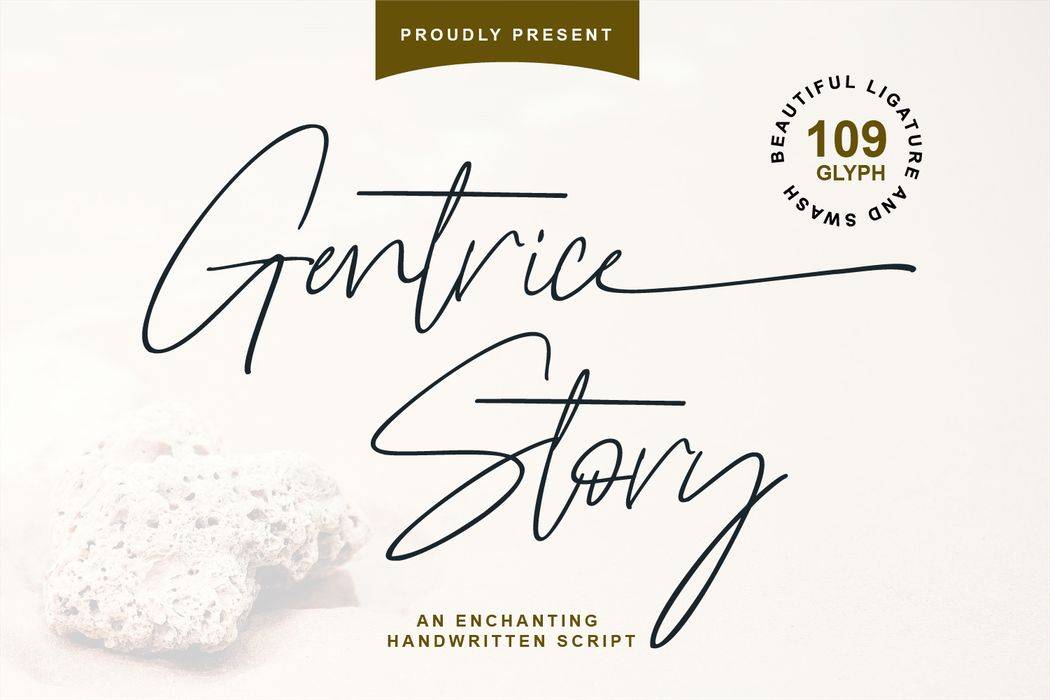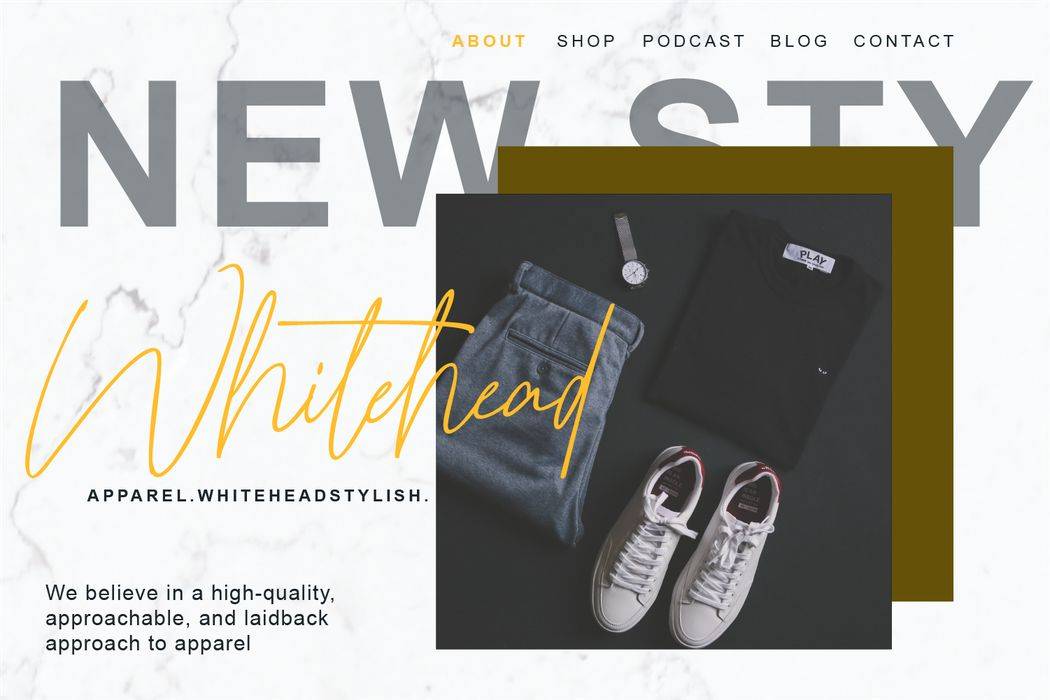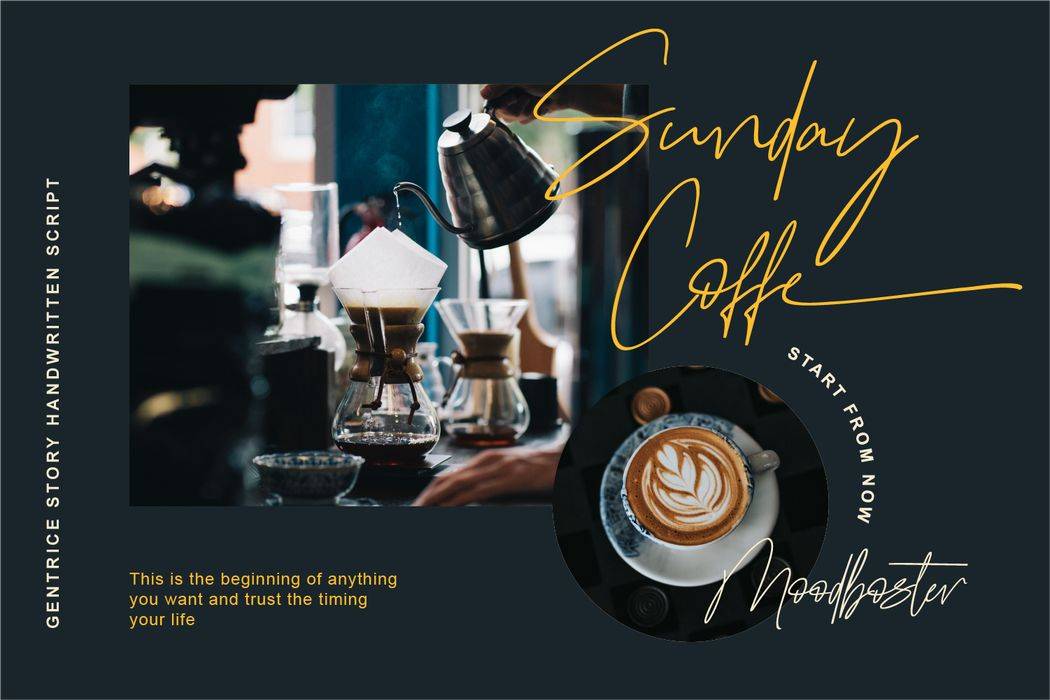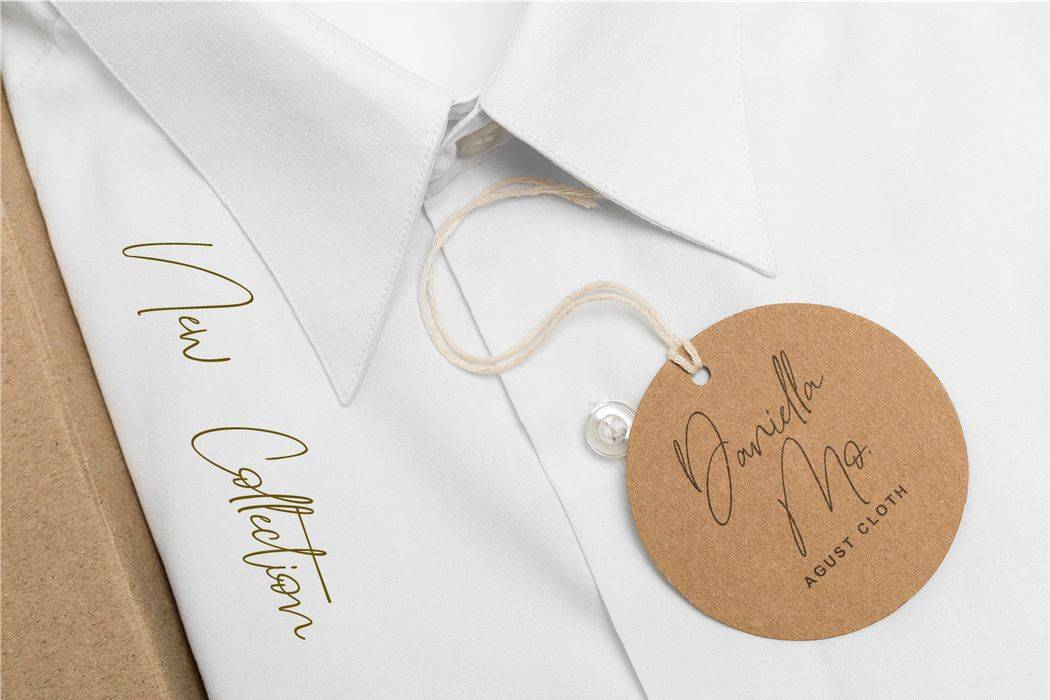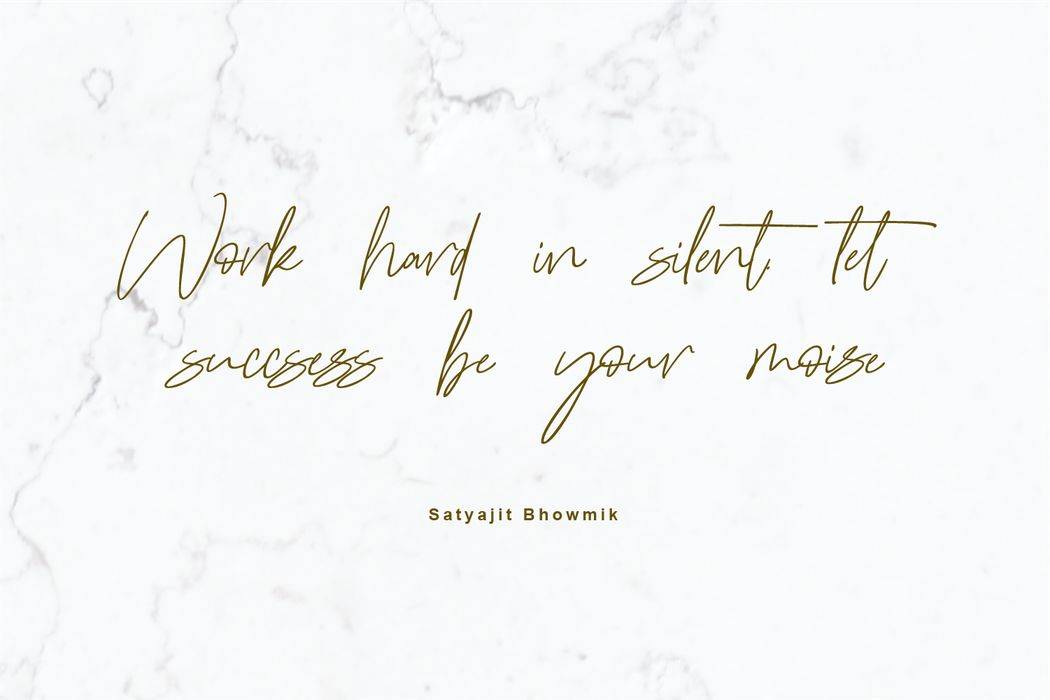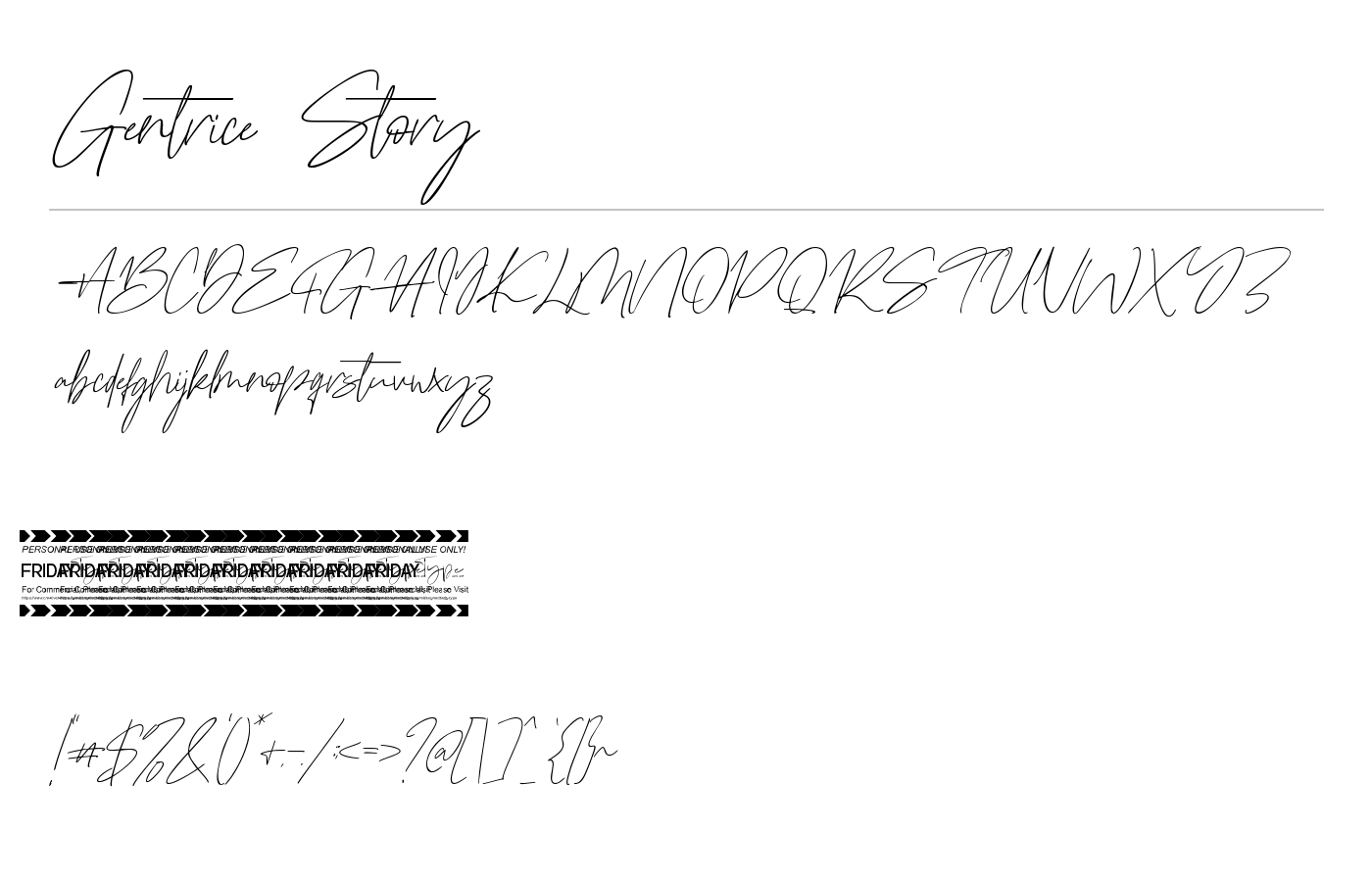
Gentrice Story is a delicate, handwritten script font characterized by its thin, flowing strokes and elegant, slightly irregular letterforms that evoke a personal, artistic touch. Its airy and light design makes it perfect for sophisticated branding, invitations, or any project seeking a modern yet intimate feel. This font works best in large display uses such as logos or headlines where its graceful style can truly shine.
Gentrice Story Font
About Gentrice Story Font
| Font family | Gentrice Story Font |
| Languages supported | Latin, Greek, Cyrillic, Symbols |
| Release date | 2021-10-10 |
| Designer | Farida Kurniawan |